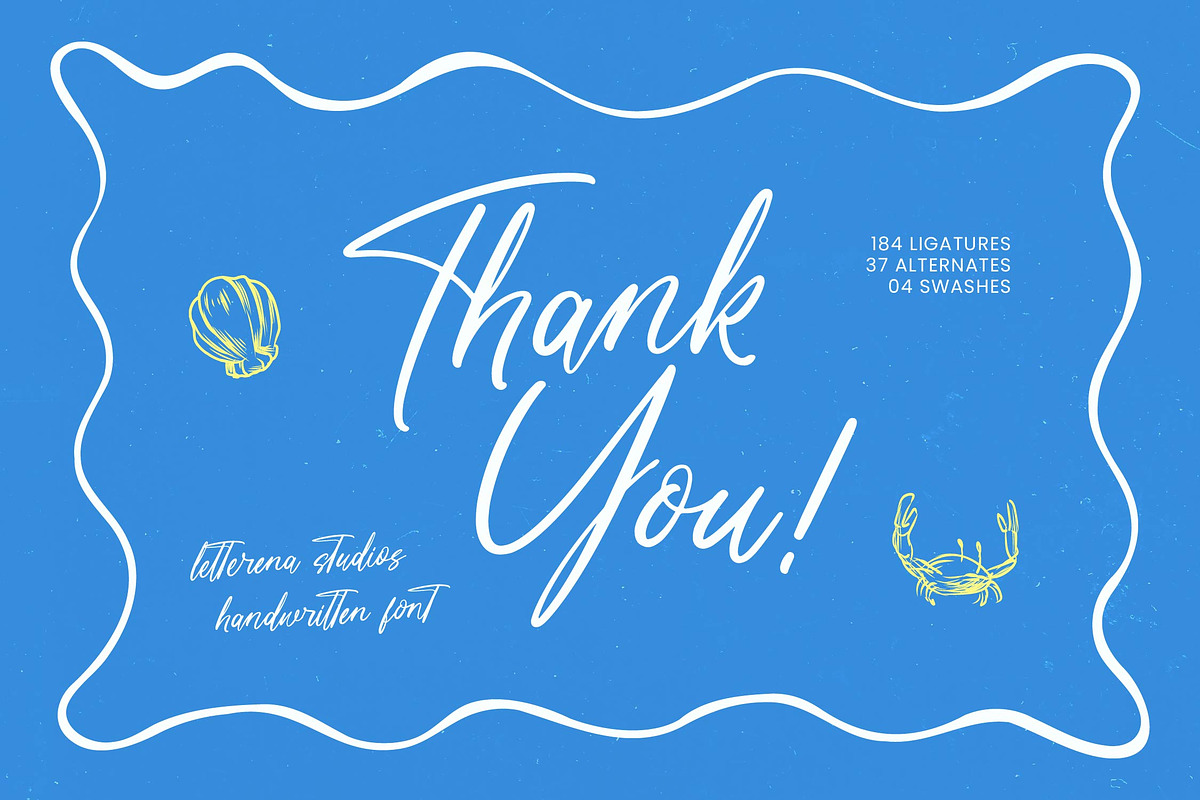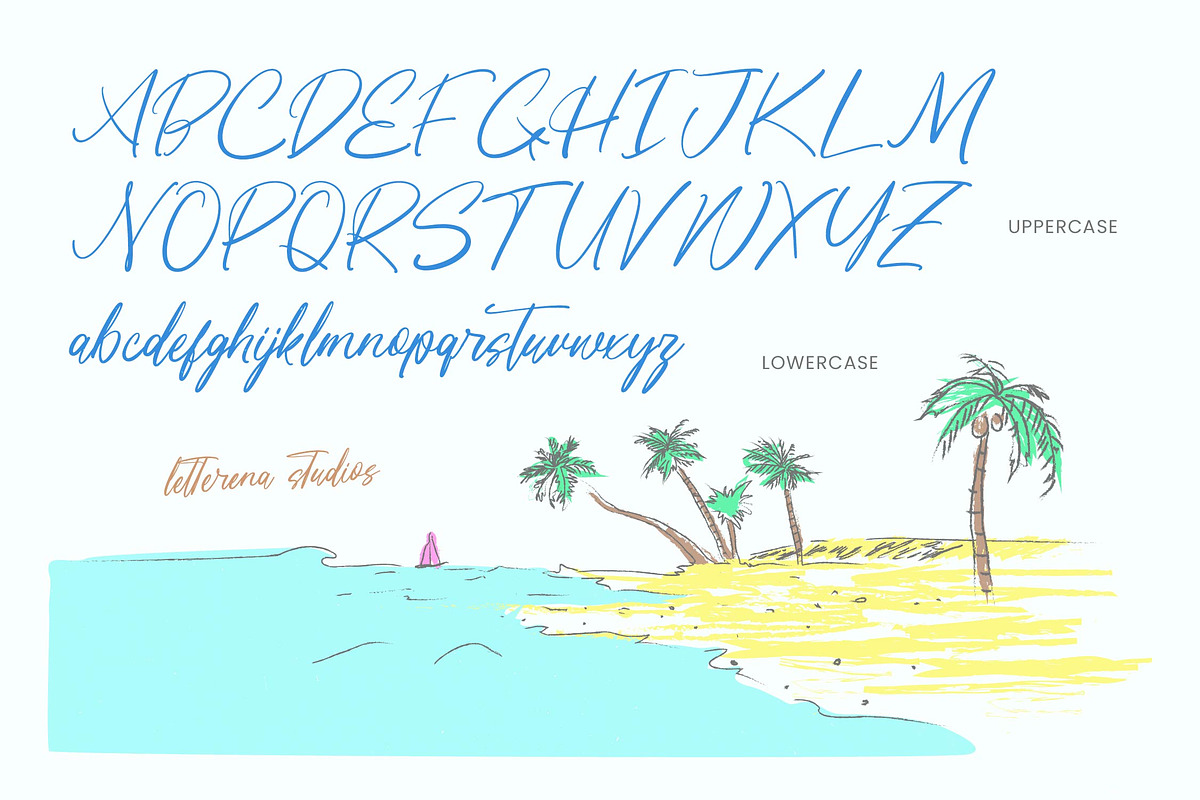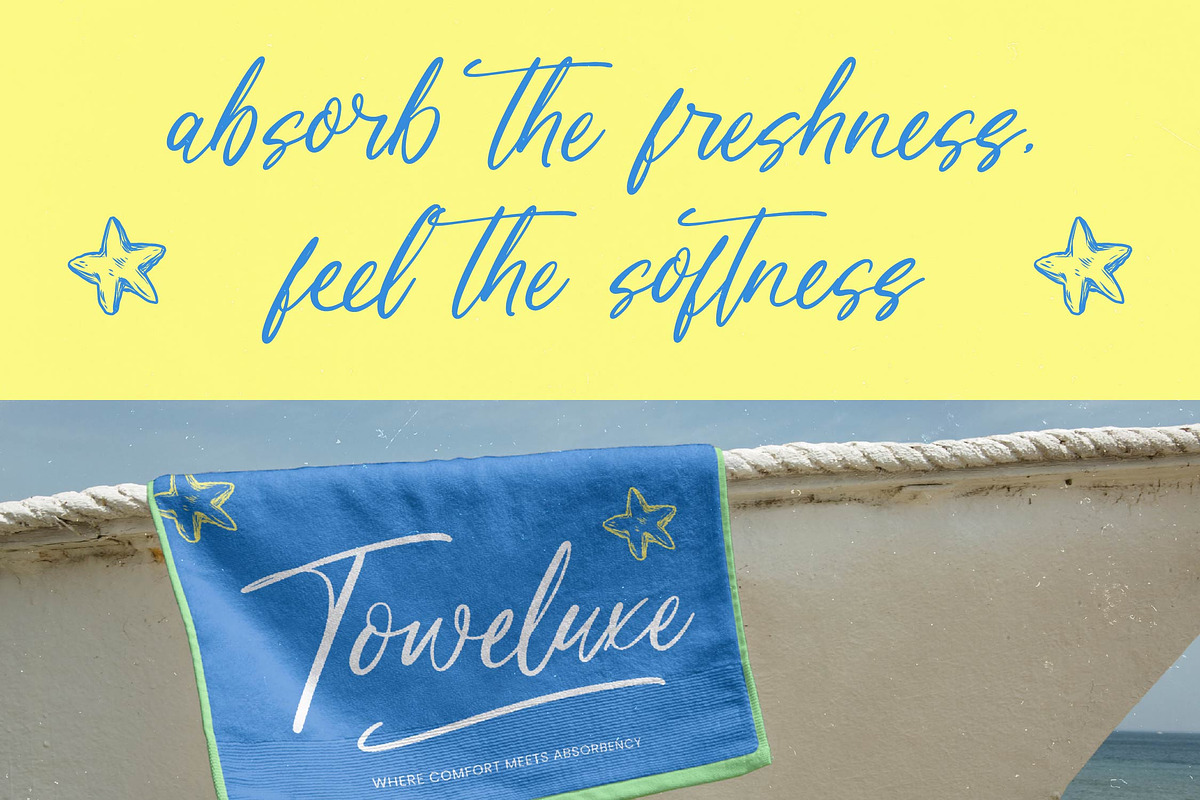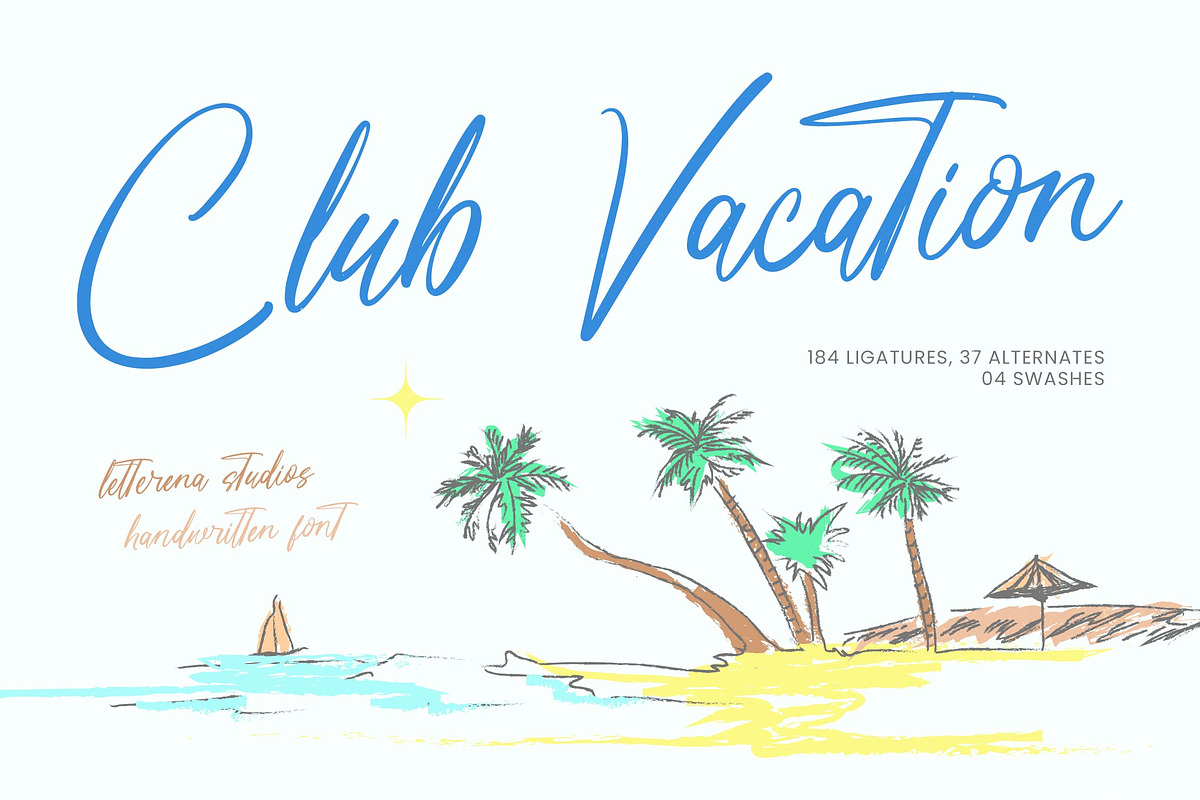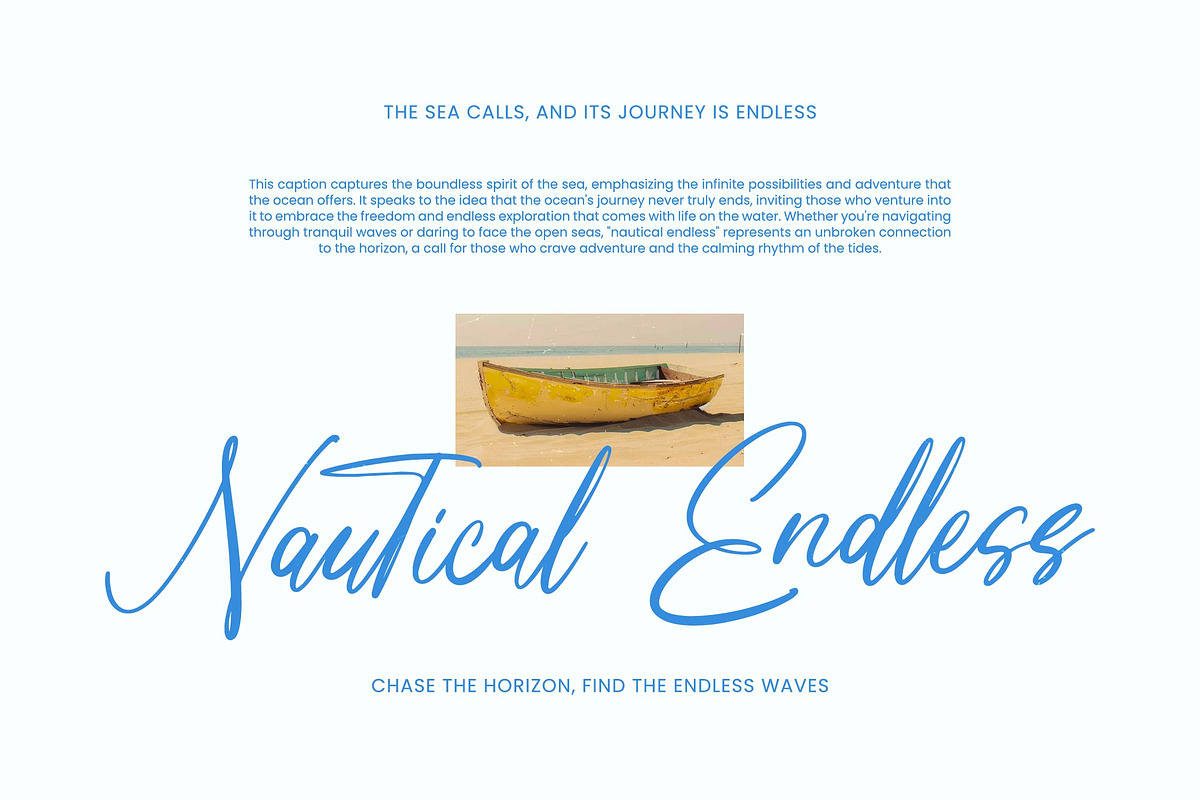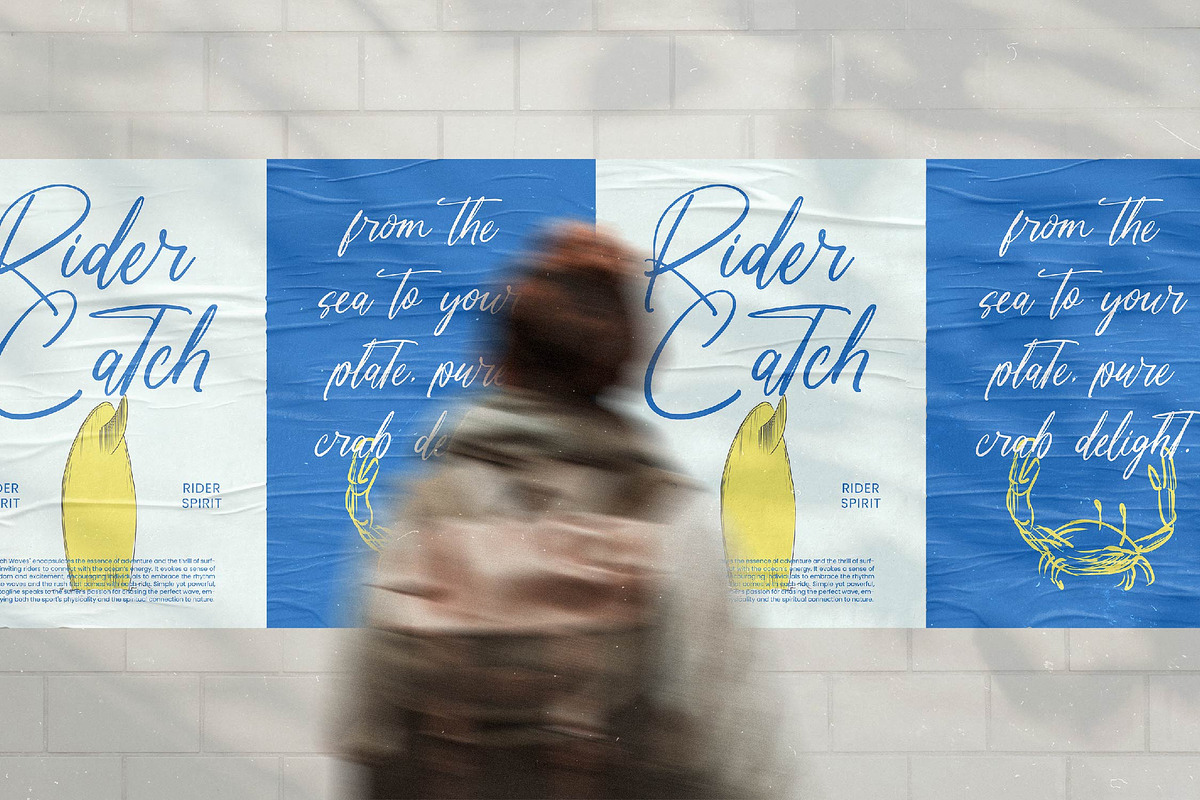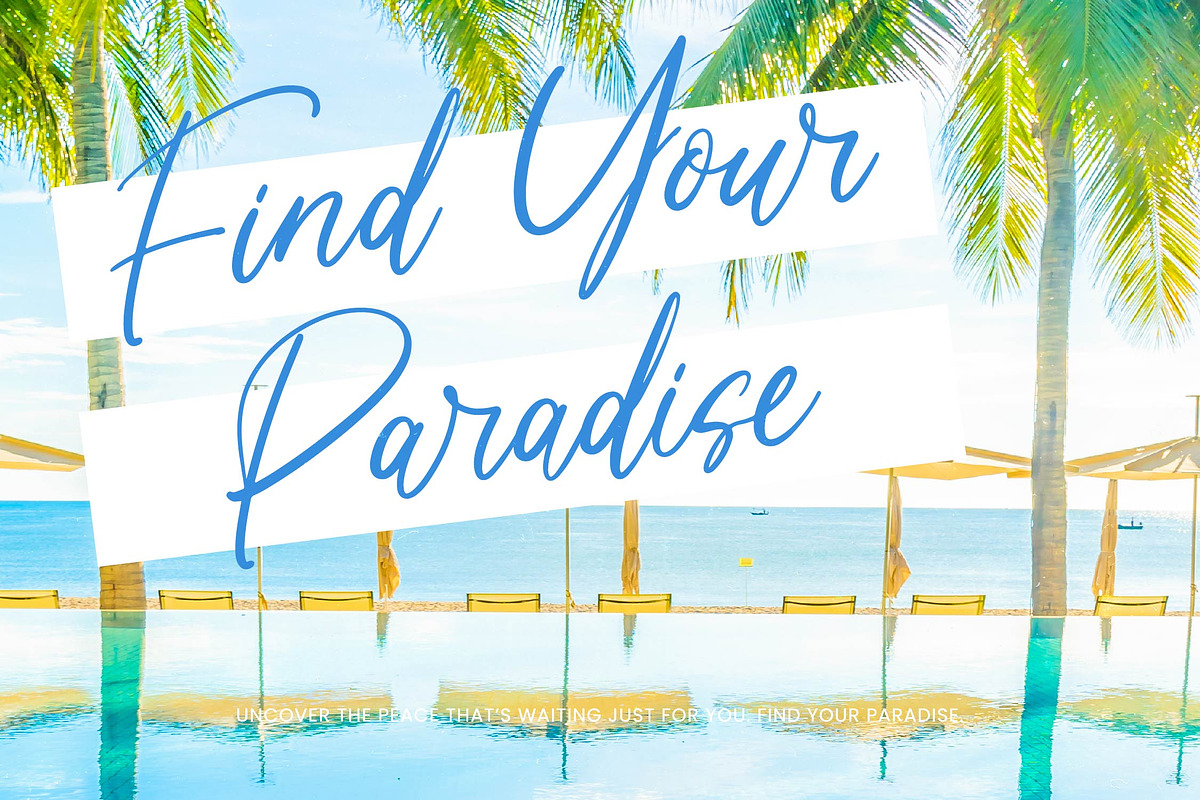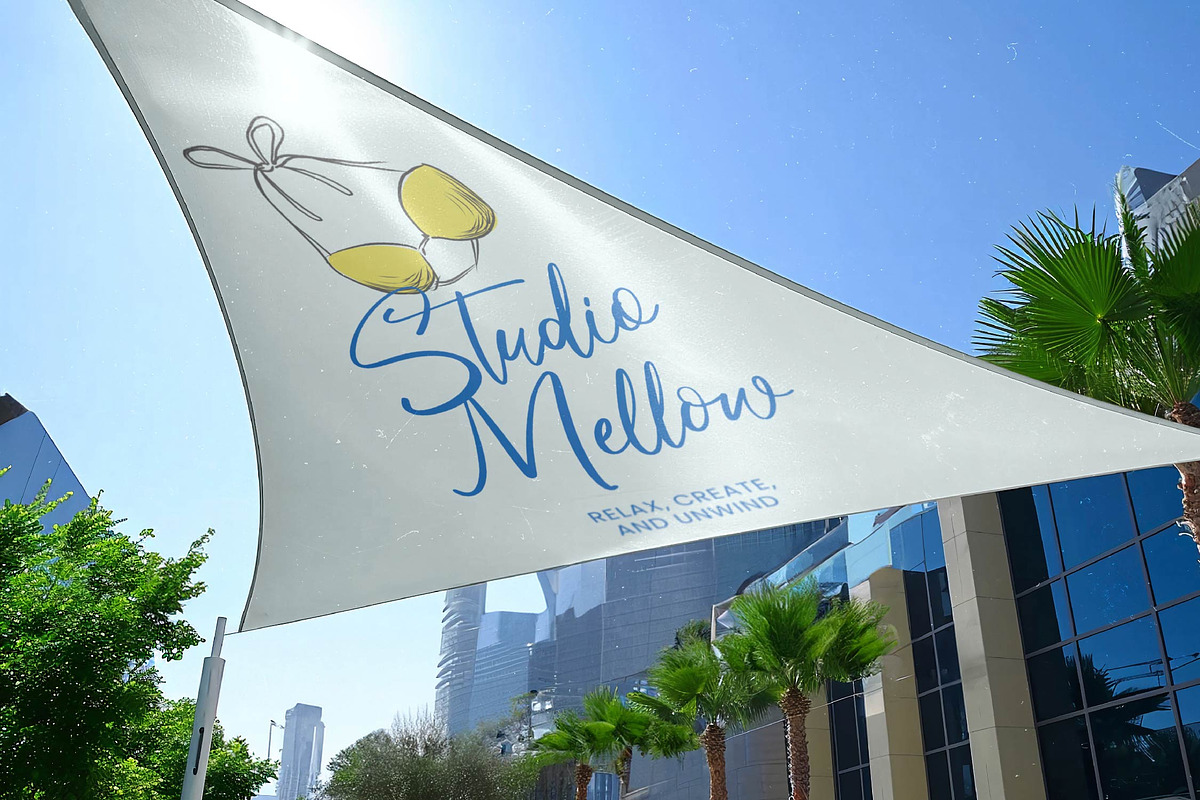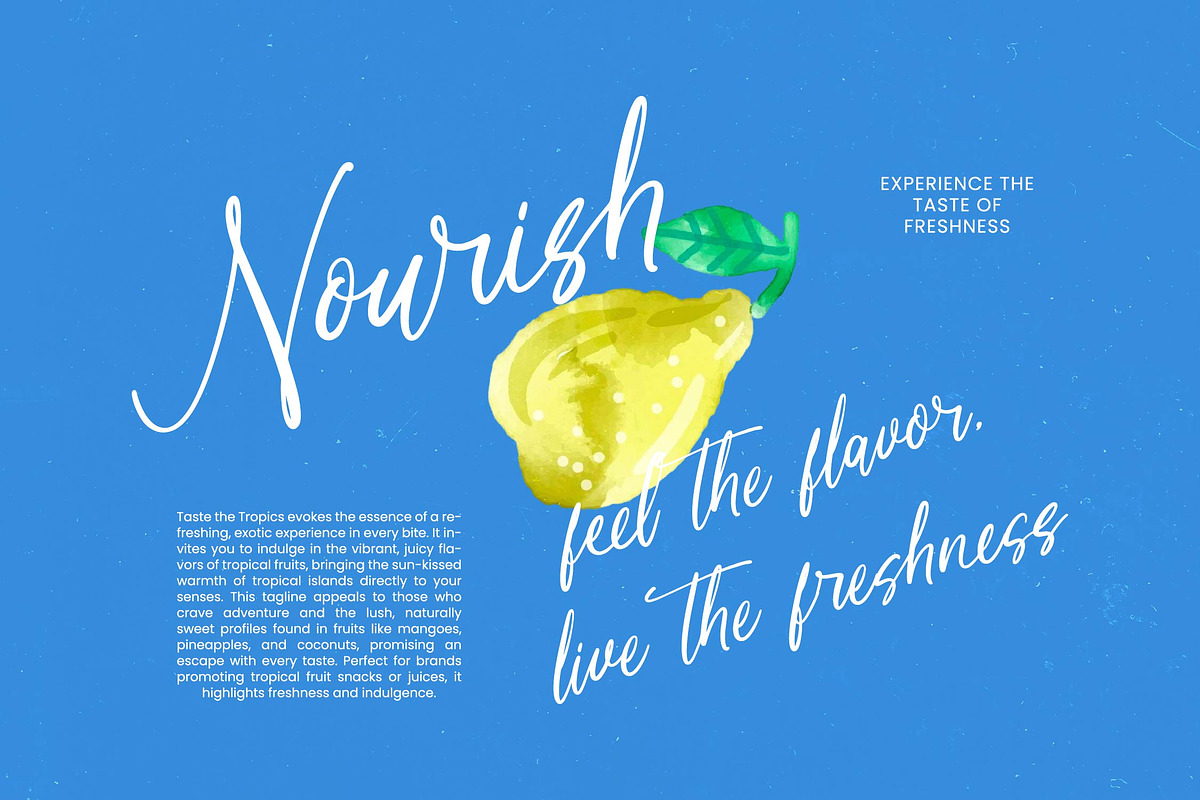
Club Vacation Handwritten Font
Club Vacation – Handwritten Font , Elevate your creative projects with an effortless sense of leisure and sophisticated style. Club Vacation - Handwritten Font is a premium dynamic script designed to capture the breezy, carefree essence of a luxury getaway while maintaining a handcrafted aesthetic. Its fluid, organic strokes provide a human touch that is essential for modern visual storytelling, making it an indispensable asset for designers seeking to evoke a sense of warmth and authenticity in their work.
Precision meets personality through a robust set of OpenType features that mimic the natural rhythm of handwriting. With an impressive library of 184 ligatures and 37 stylistic alternates, Club Vacation - Handwritten Font ensures seamless transitions between characters, avoiding repetitive patterns that often plague digital scripts. The addition of custom swashes allows for tailored flourishes, providing a bespoke typography experience that feels unique to every layout.
Global accessibility ensures your brand message resonates with clarity and impact in every corner of the world. With its extensive multilingual support, Club Vacation - Handwritten Font adapts seamlessly across global markets, making it incredibly versatile for international projects. This broad character set empowers creators to maintain brand consistency across various languages, ensuring that the font's refined elegance remains intact regardless of the geographic location of your audience.
Transform your brand identity into an unforgettable experience by leveraging this font’s high-end appeal. Club Vacation - Handwritten Font is perfect for luxury branding, travel packaging, editorial design, and high-end lifestyle marketing. Whether you are crafting invitation suites for exclusive events or resort signage that speaks of relaxation, this typeface provides the distinctive personality required to stand out in a competitive marketplace.